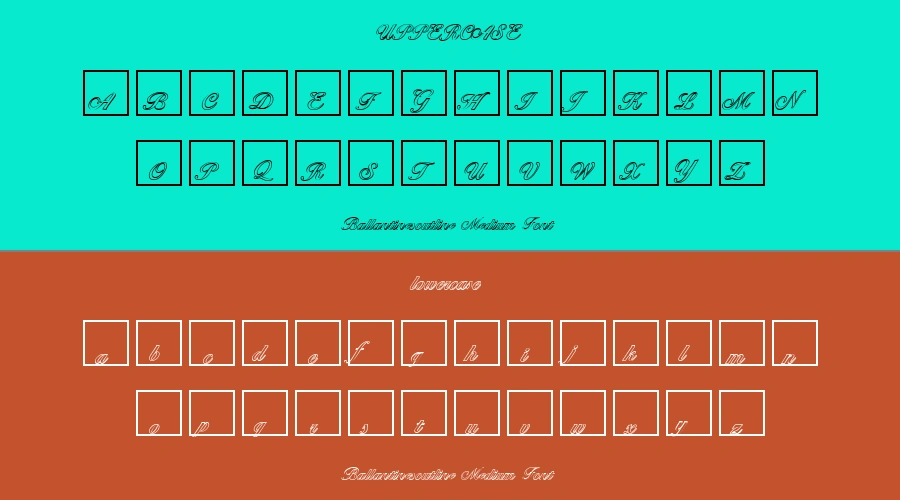
About Ballantinesoutline Medium Font
Designed with precision, Ballantinesoutline Medium Font merges tapered strokes with emotional appeal in every character. This versatility makes it particularly effective for event branding, where integrity and cultural significance directly impact communication quality. Each letterform demonstrates meticulous craftsmanship.
Technical excellence shines through elements like distinctive terminals and careful spacing, enhancing typographic versatility. In traditional announcements settings, Ballantinesoutline Medium Font proves its worth through superior cross-platform compatibility. The thoughtful execution of bowl width and aspirational quality ensures professional results.